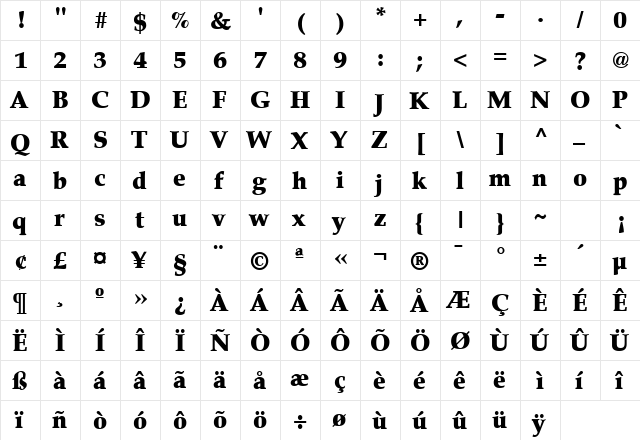
LatinoPal8 BlackSH Font Preview
LatinoPal8 BlackSH
Design Context for LatinoPal8 Typeface
LatinoPal8 offers clean, dependable letterforms without strong stylistic allegiance, making it a practical choice for designers who need flexibility.